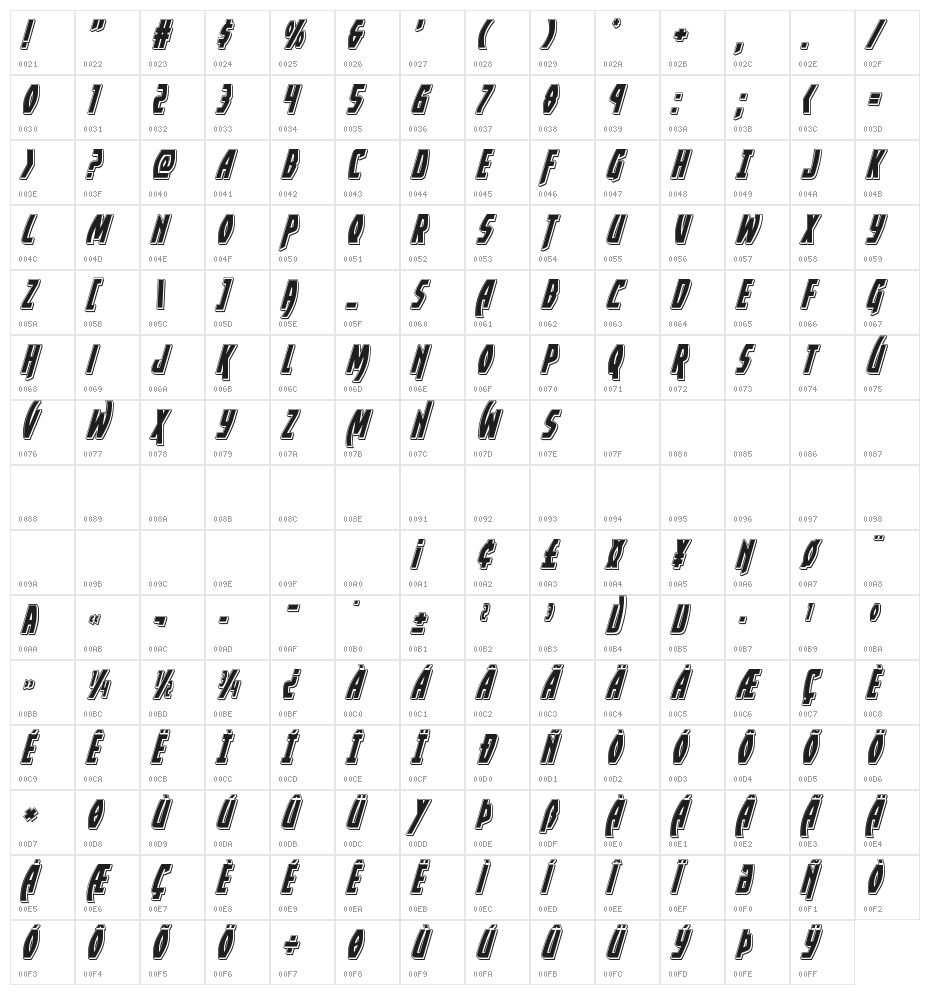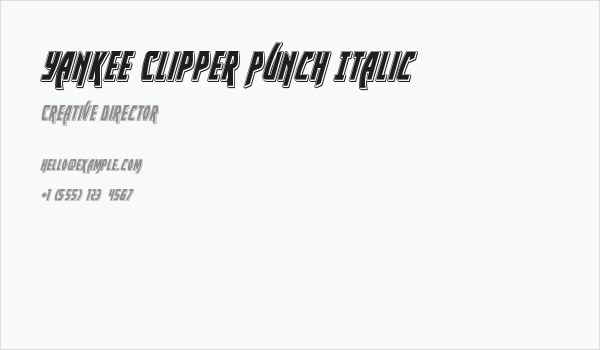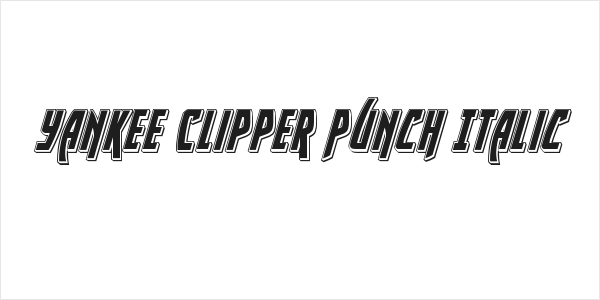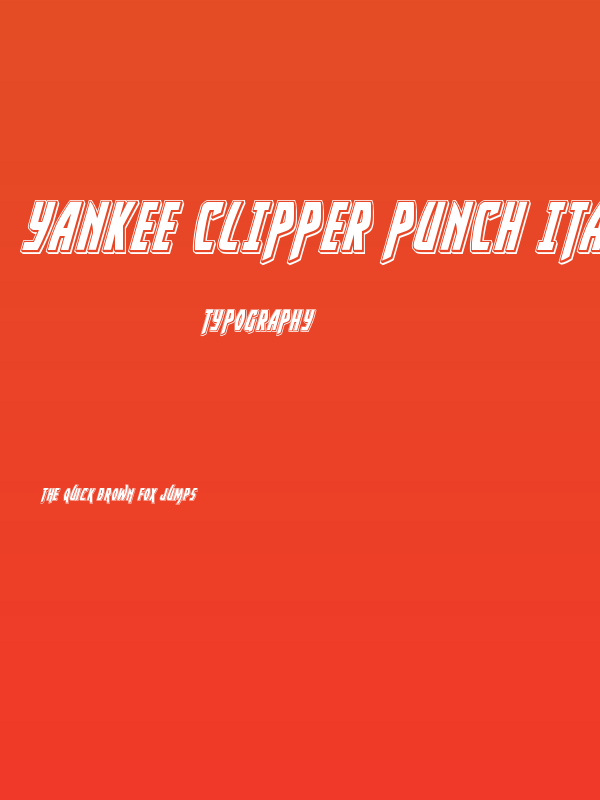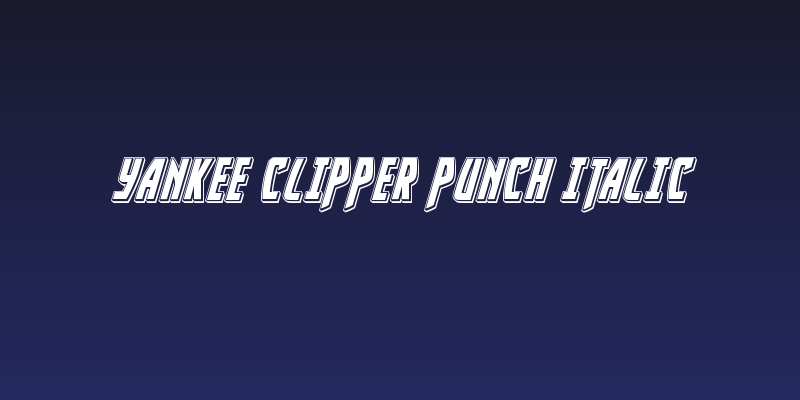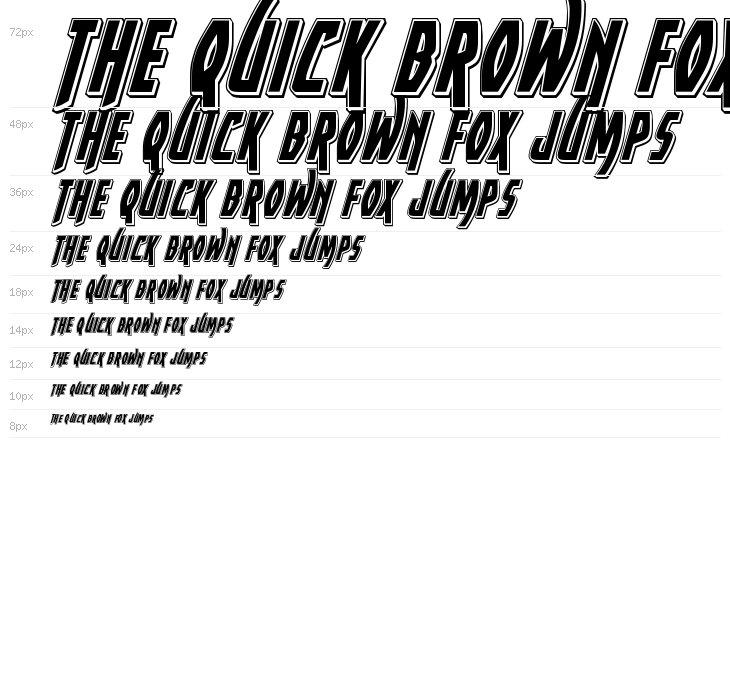
Yankee Clipper Punch Italic Font
Yankee Clipper Punch Italic Description
This font features a bold and dynamic style with a strong italic slant, giving it a sense of motion and energy. The characters are outlined with a thick black border, enhancing their visibility and impact. The uppercase and lowercase letters maintain a consistent design, with sharp angles and a slightly condensed form. The numerals and special characters follow the same aesthetic, ensuring uniformity across all glyphs. This font is ideal for projects that require a bold statement and a modern, edgy look.